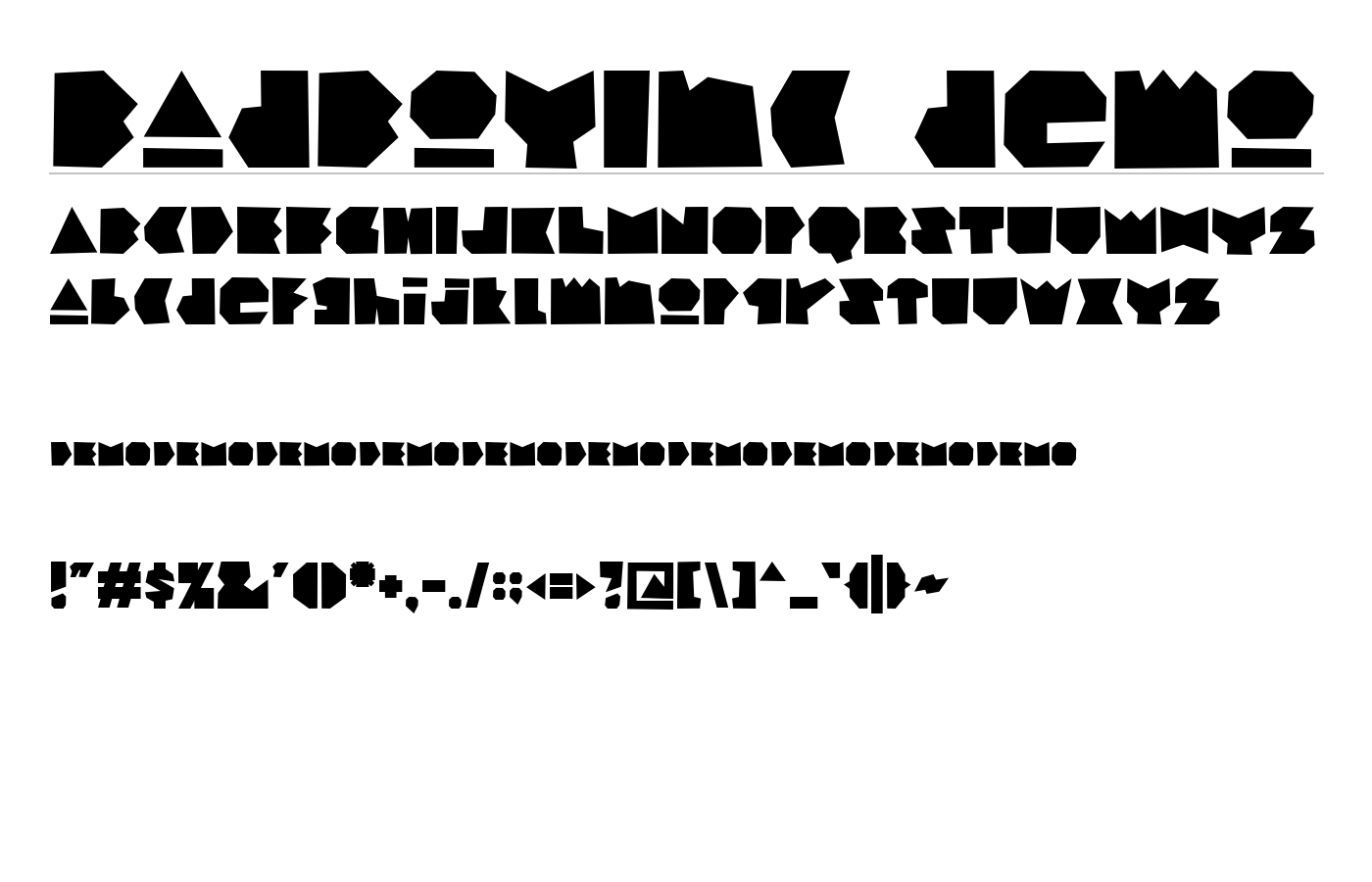
BadBoyInc demo Font is a bold, geometric display typeface with a strong, edgy personality. Its heavy weight and blocky, irregular shapes make it perfect for eye-catching headlines, posters, and branding that want to convey a rebellious, playful, or unconventional vibe. This font works best in creative, informal contexts where a striking visual impact is key.
BadBoyInc demo Font
About BadBoyInc demo Font